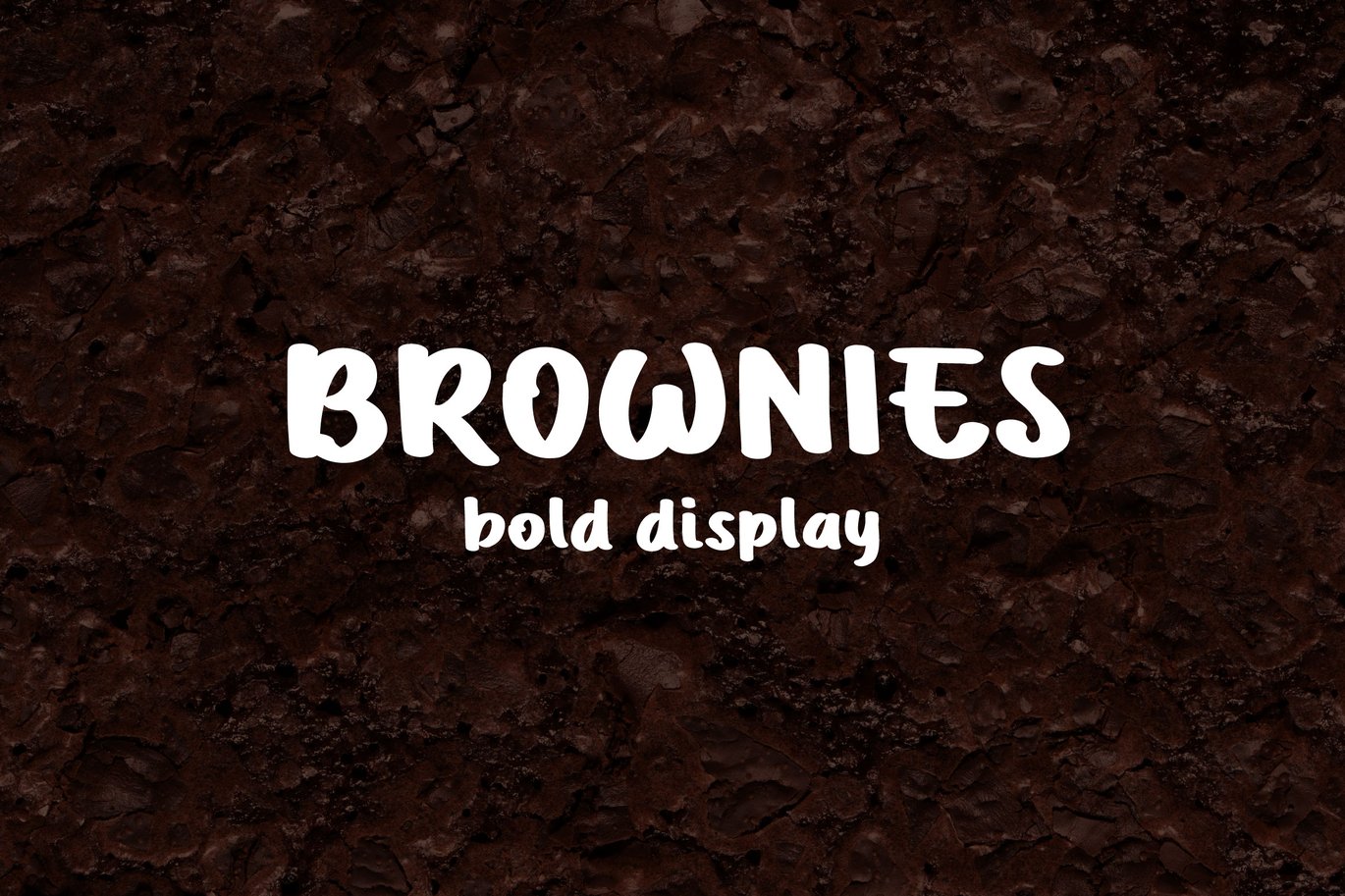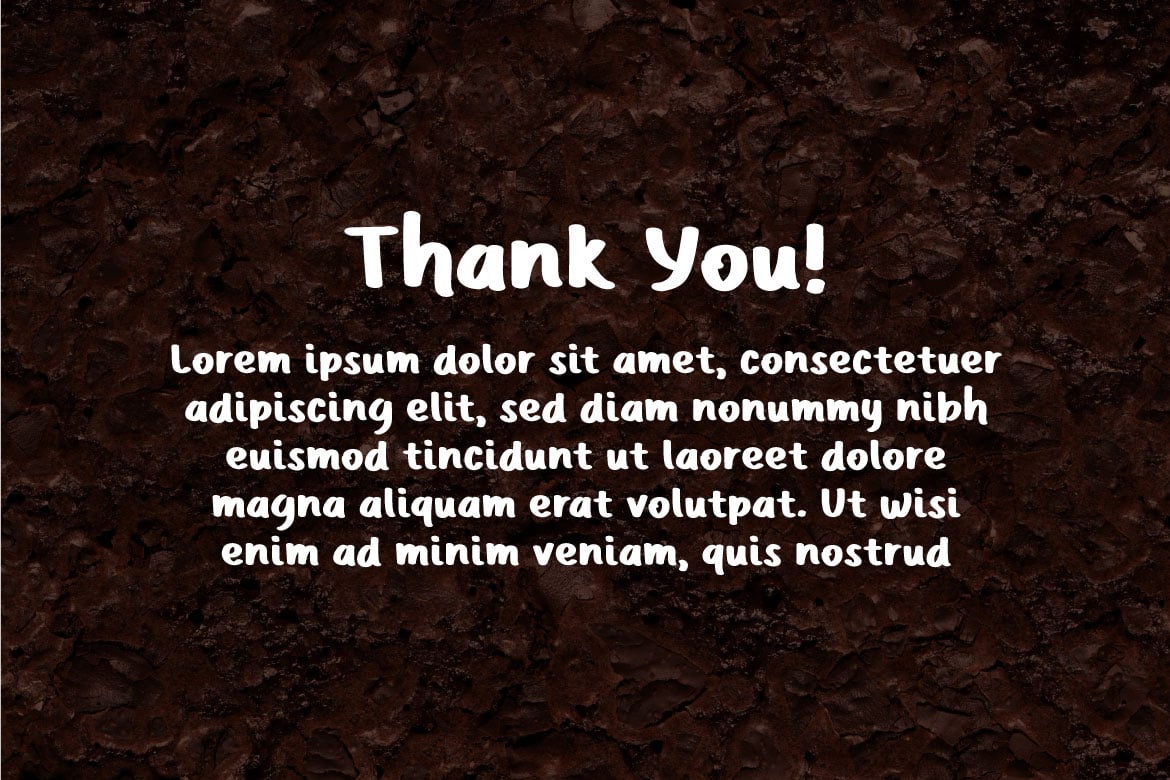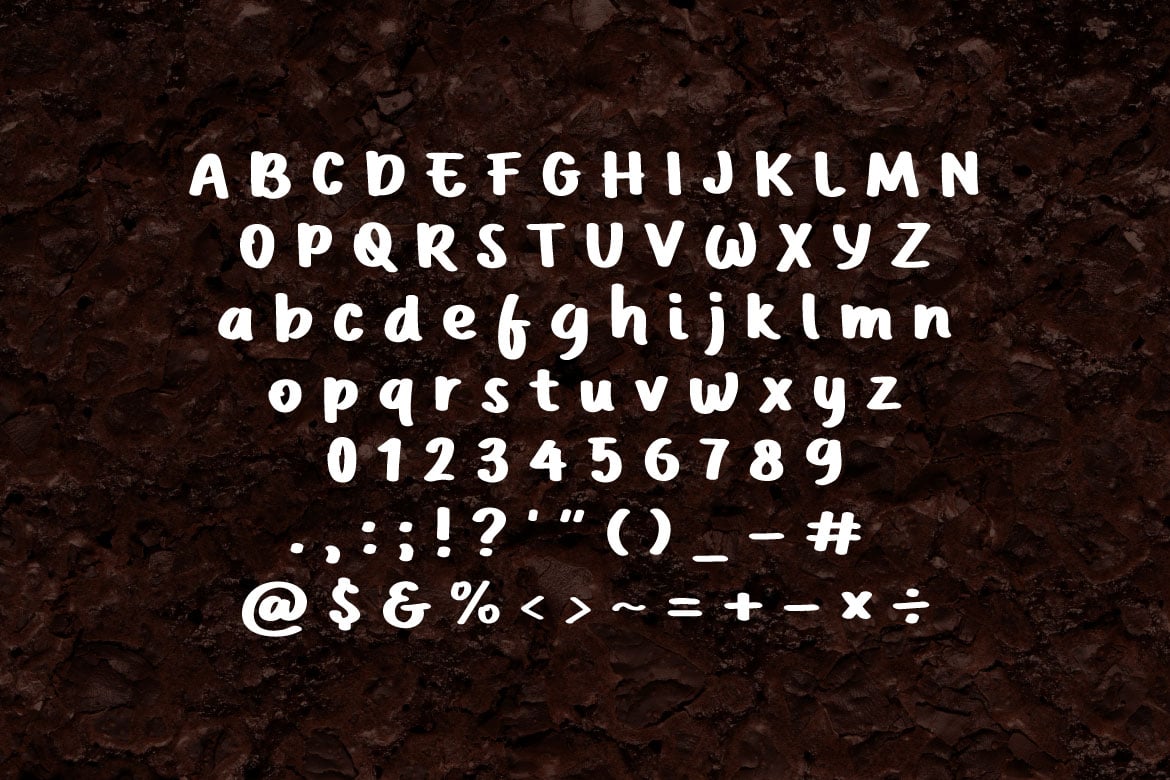
Brownies – Bold Curly Font
Brownies is a bold and small sans serif font. This font has cute and playful looks.
Brownies can be used in any works such as book title, book content, story book, music cover, children book, poster, advertisement, social media content, logo and many more.